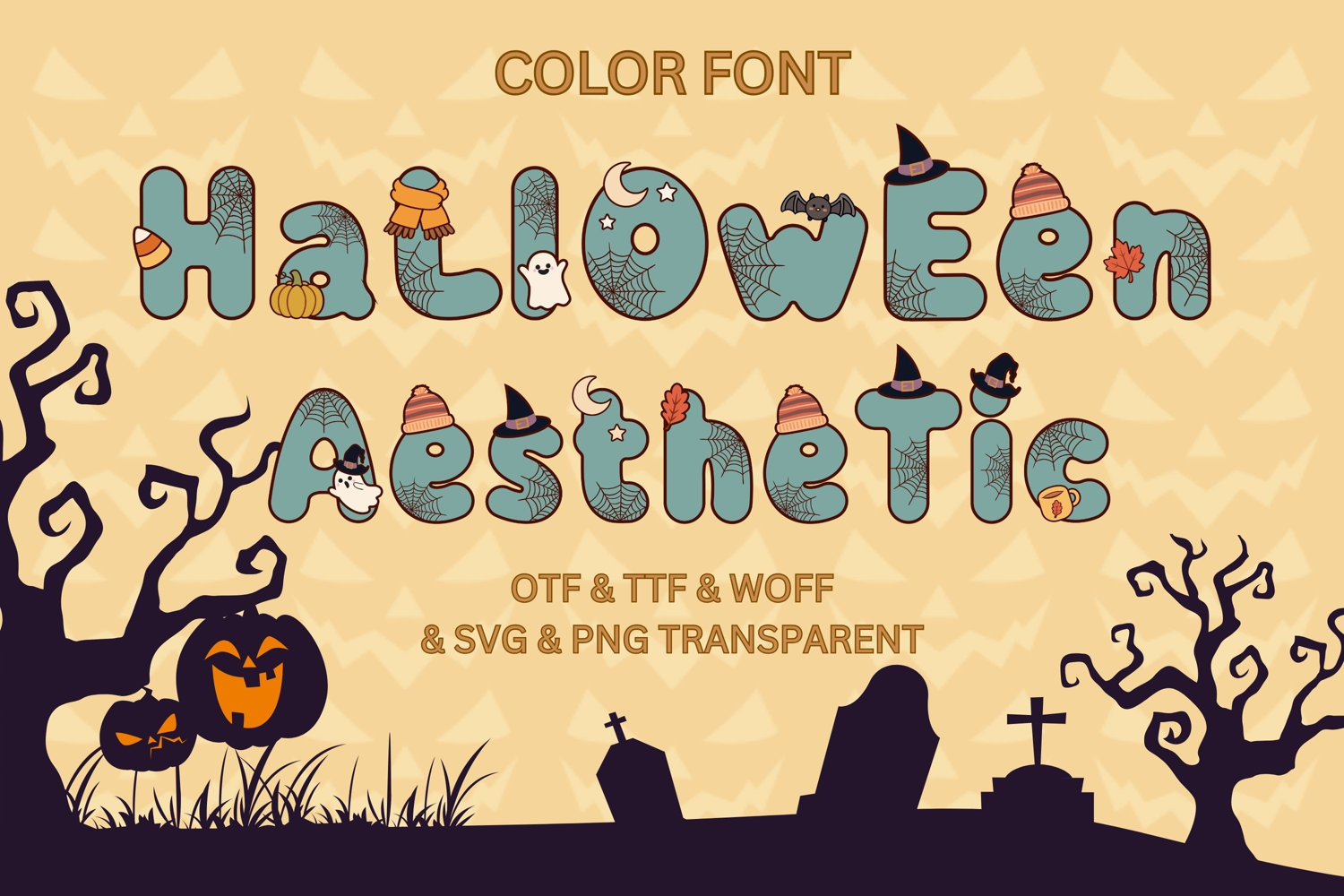
Add a spooky and cozy touch to your Halloween and fall projects with this cute Halloween Color Font! This hand-drawn decorative alphabet features soft teal letters decorated with spider webs, ghosts, bats, witch hats, pumpkins, autumn leaves, candy corn, scarves, mugs, and other charming seasonal details.
The set includes uppercase and lowercase A–Z characters, making it perfect for creating personalized names, quotes, invitations, greeting cards, party decorations, T-shirts, stickers, sublimation designs, classroom projects, scrapbooking, signs, and other seasonal crafts.
Perfect for Halloween lovers who want a playful, cute, and slightly spooky aesthetic with a warm autumn color palette.